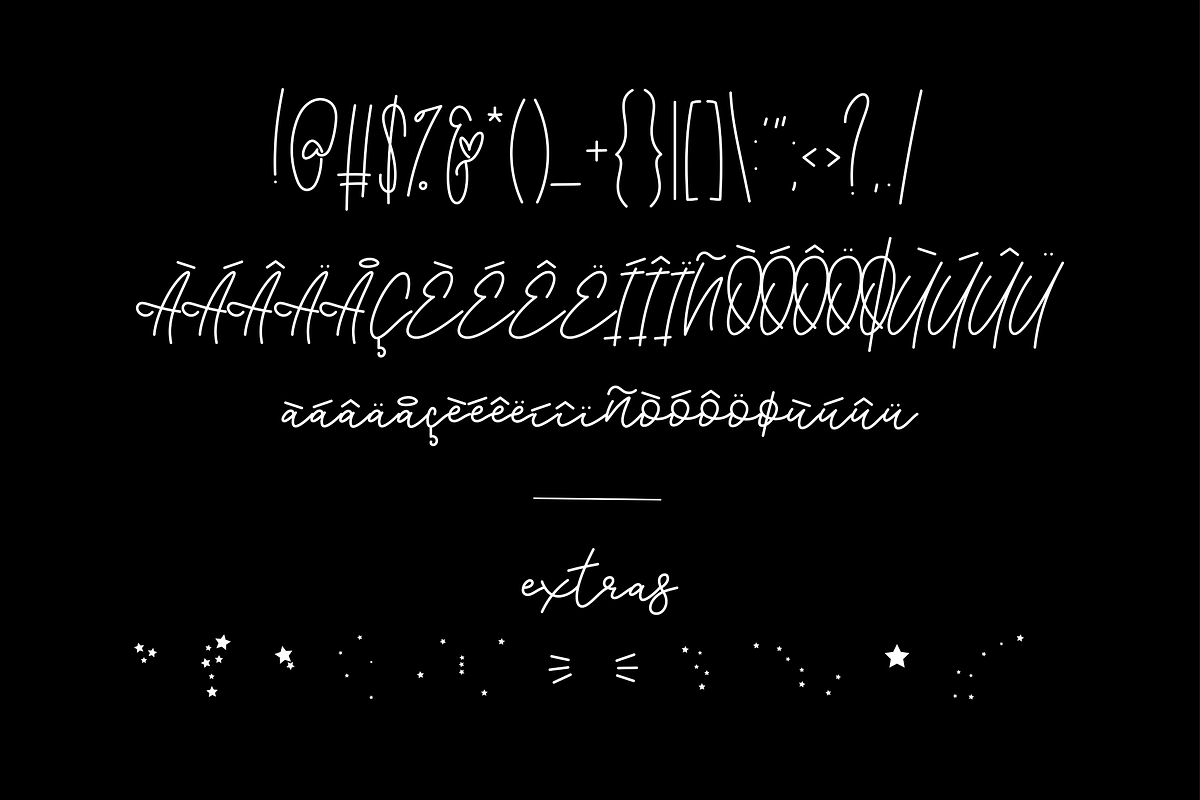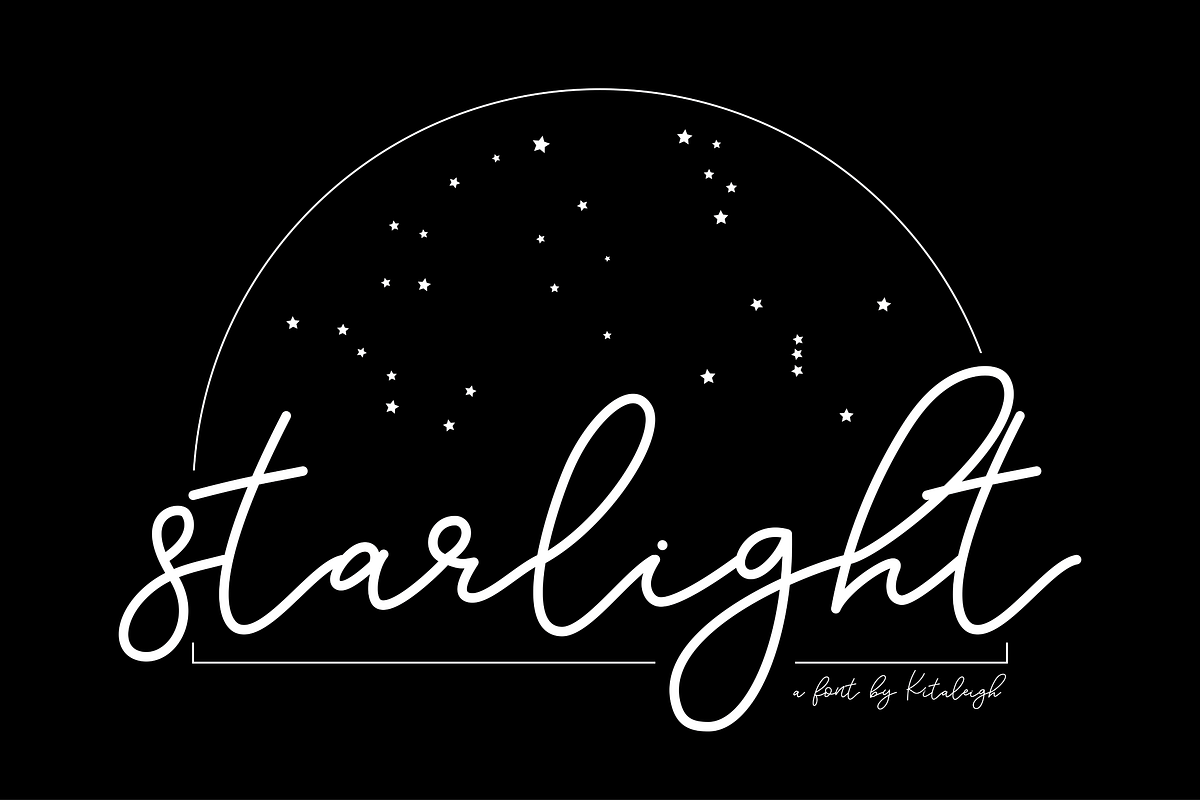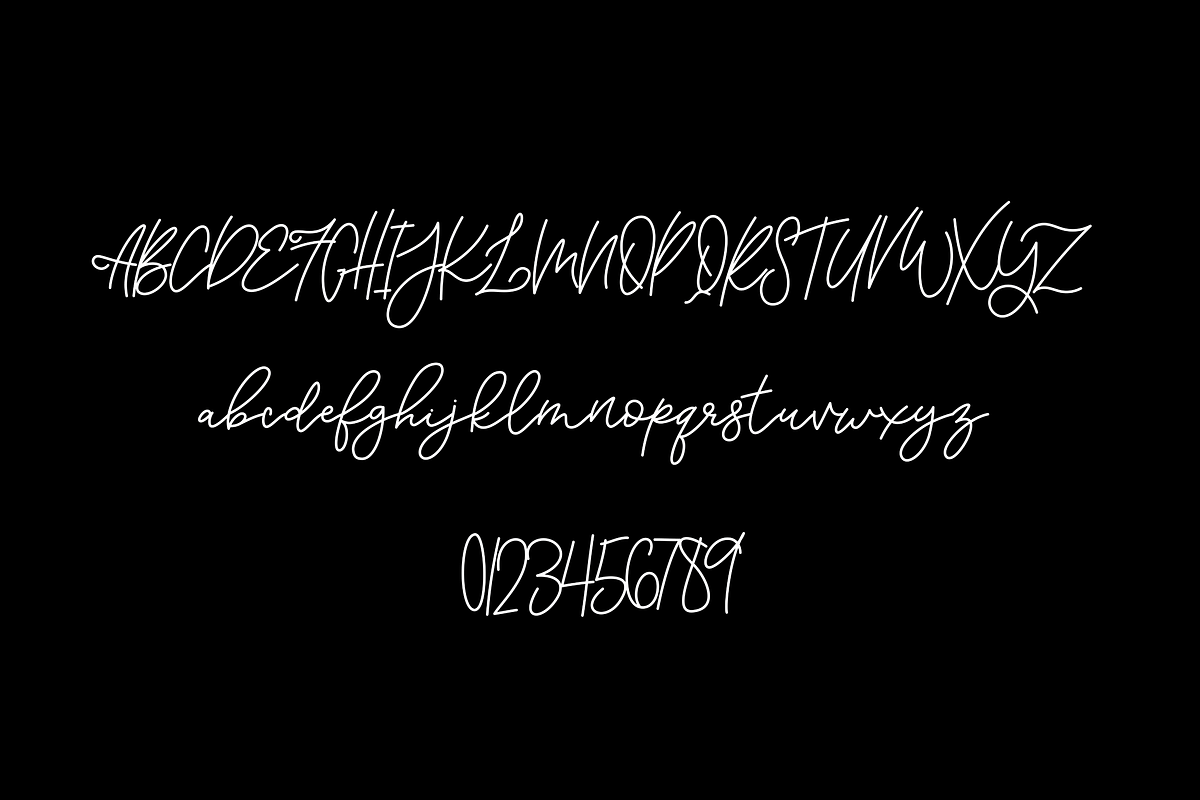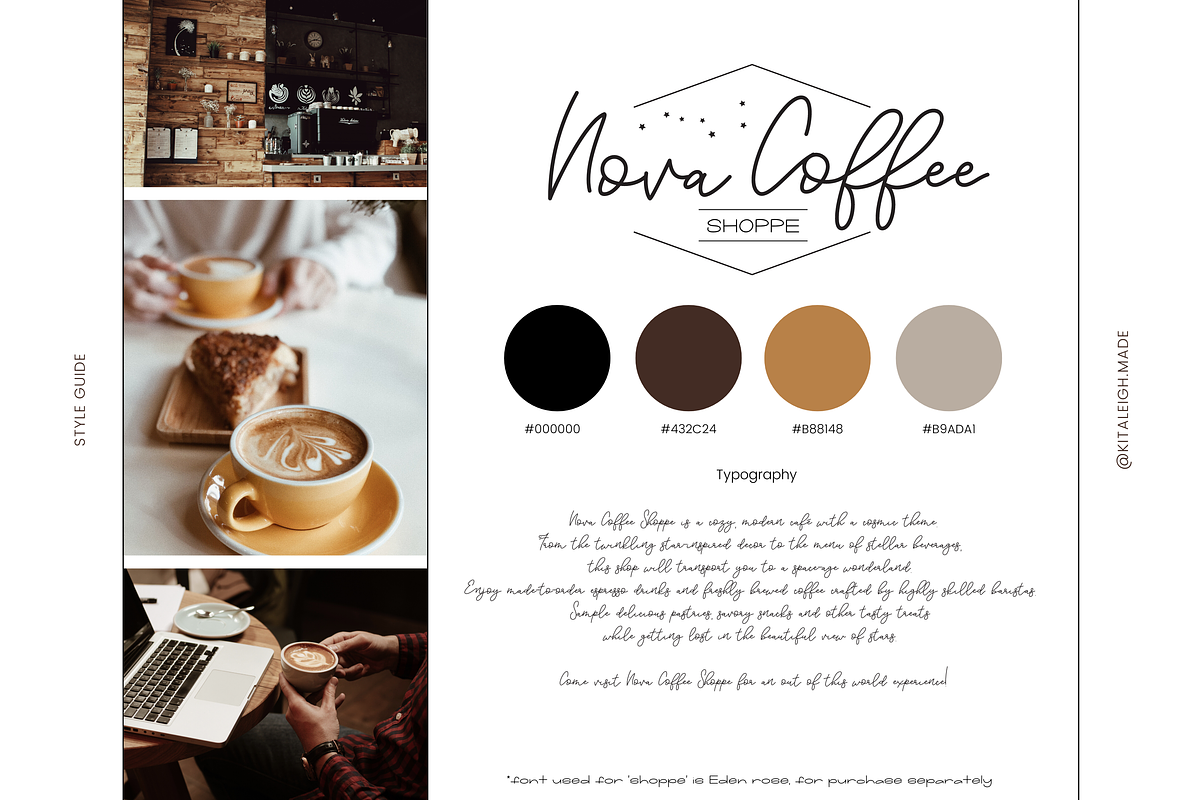
Starlight
The Kitaleigh Starlight font offers an OpenType script style with added star glyphs, making it an ideal choice for bold and eye-catching text. Its unique features make it a perfect choice for adding a professional, sophisticated finish to any document.